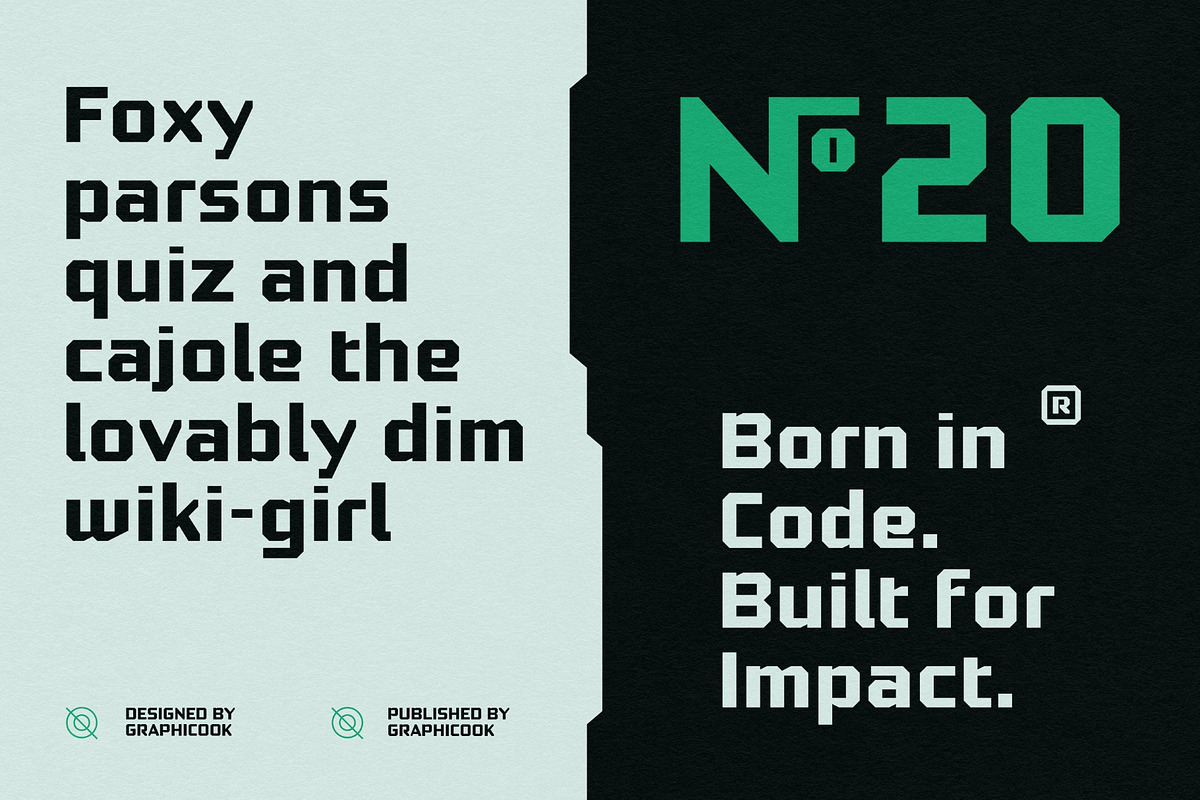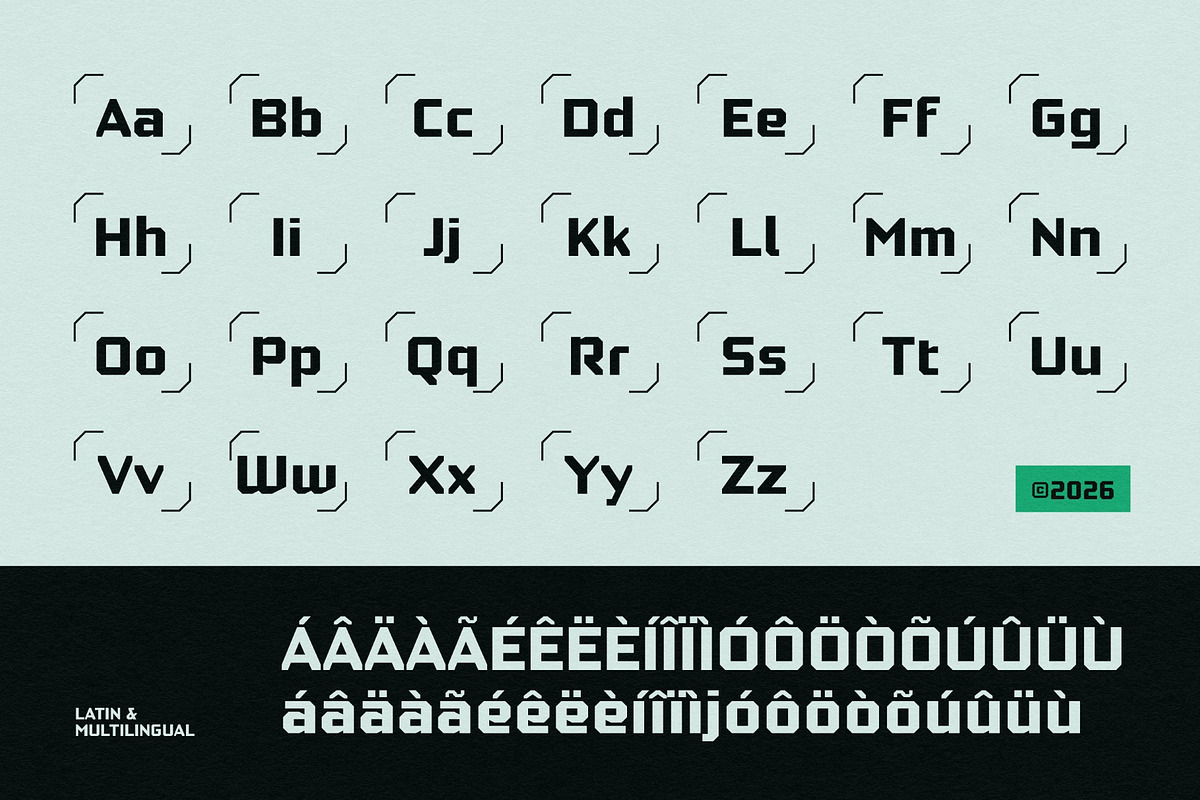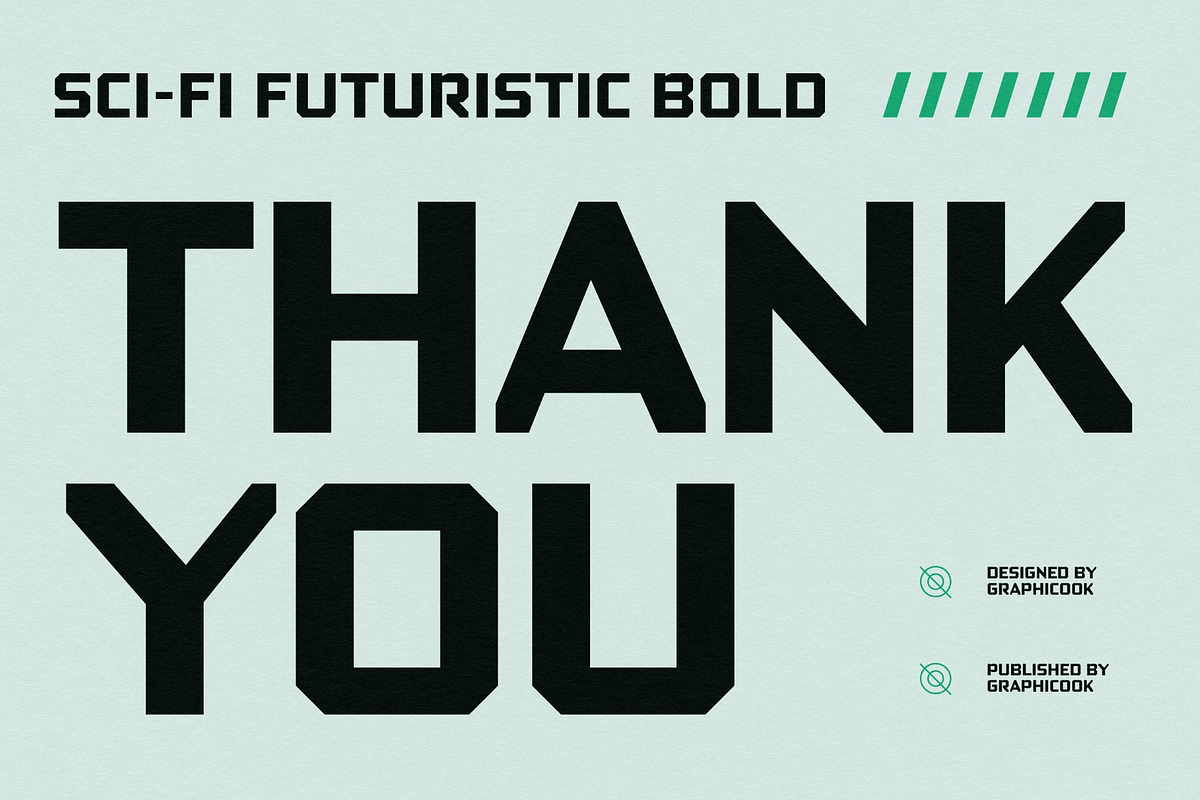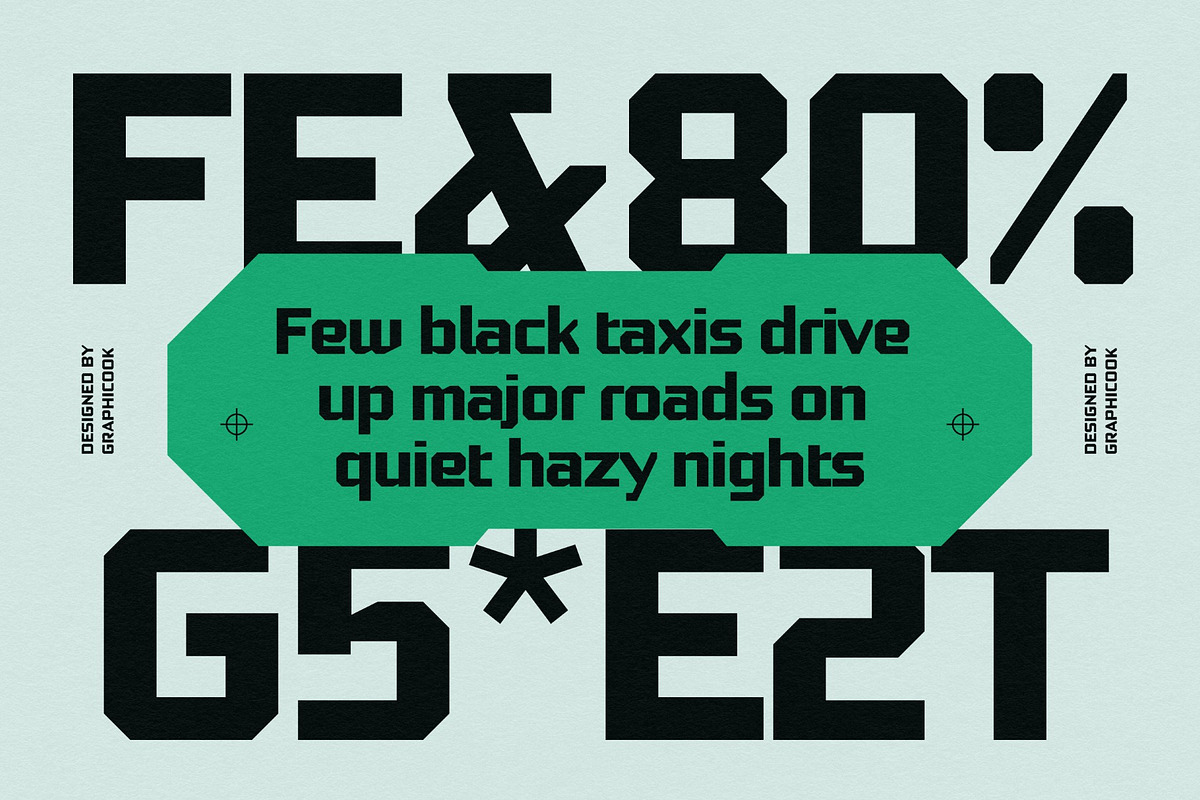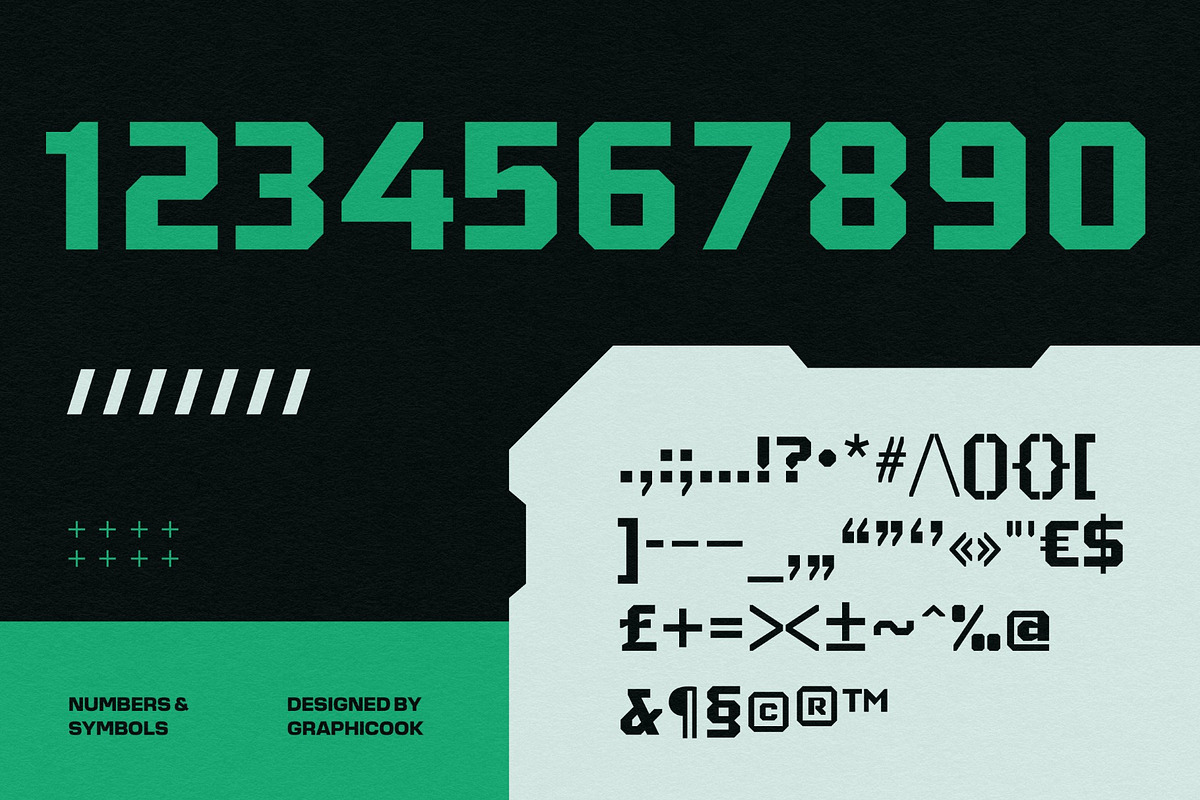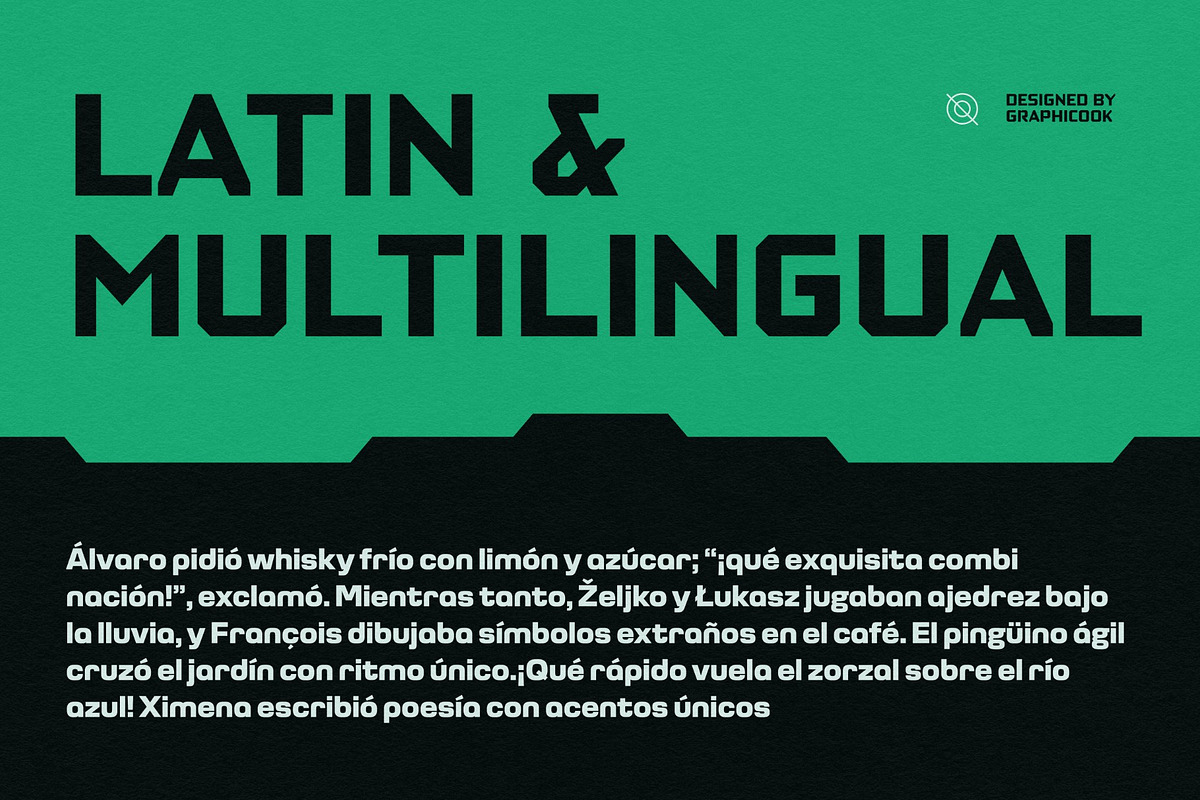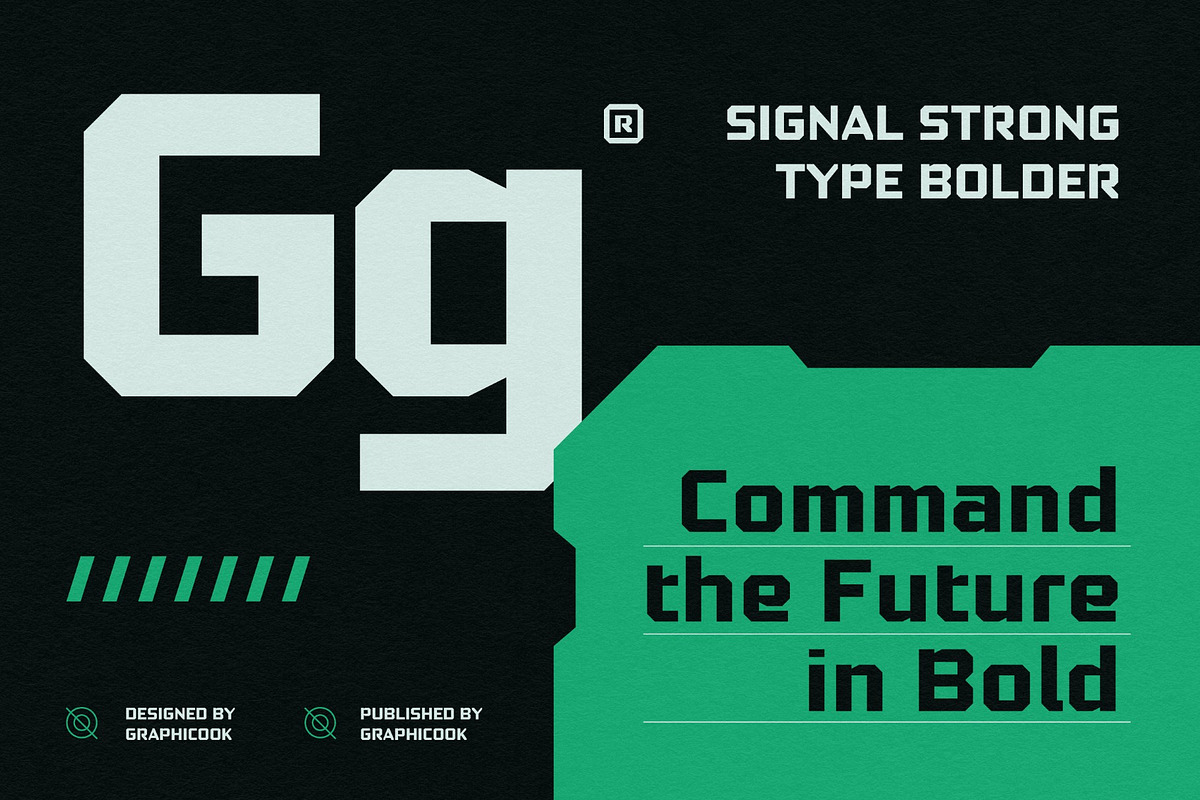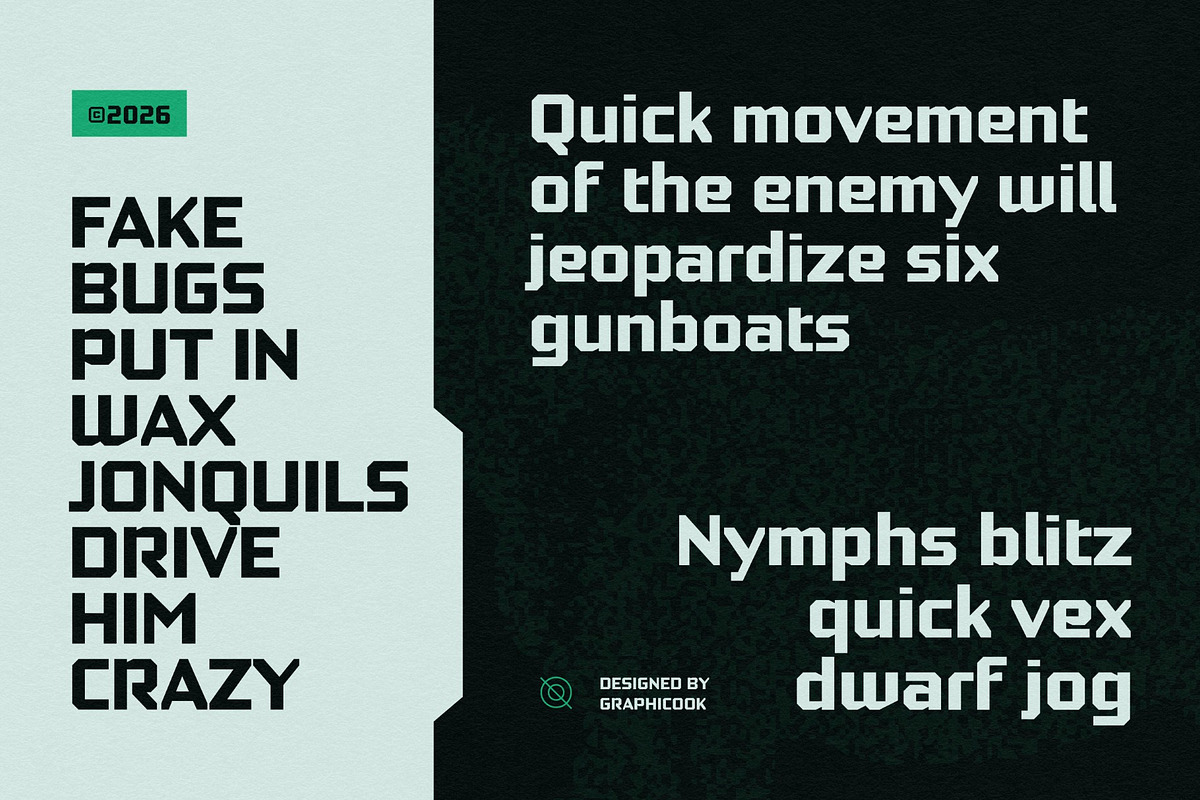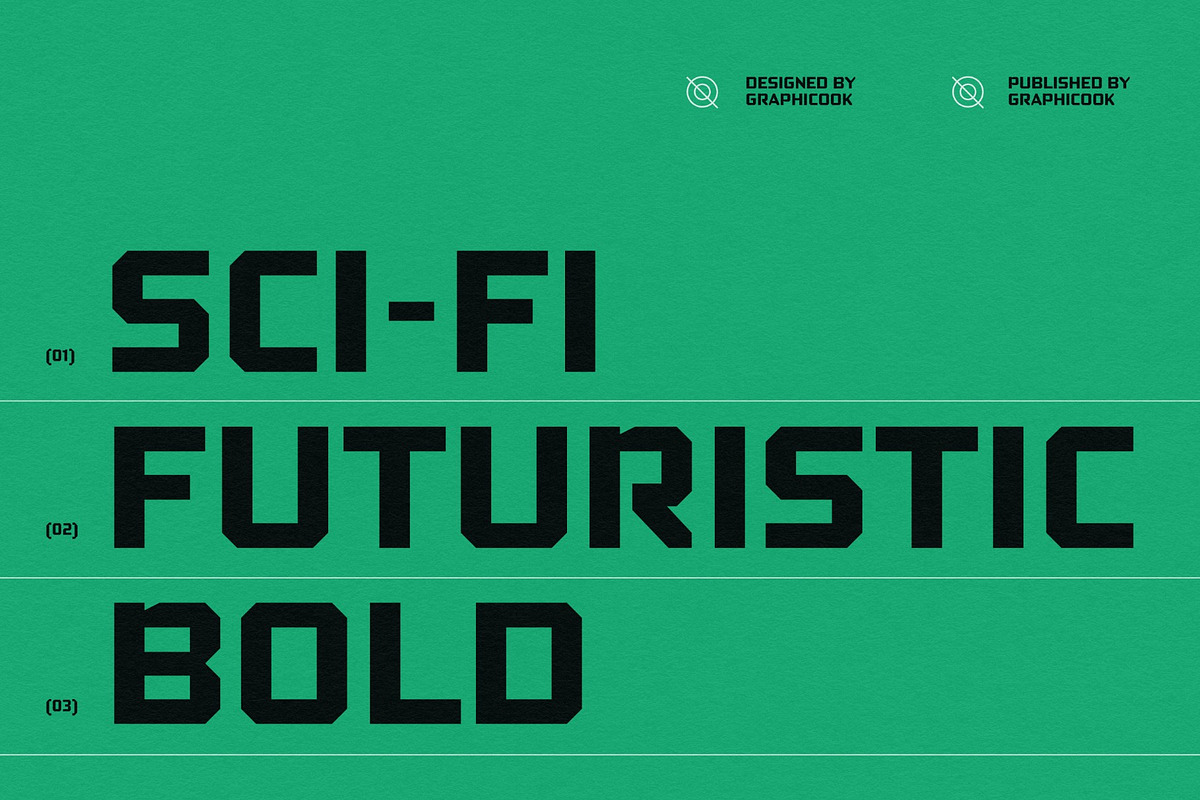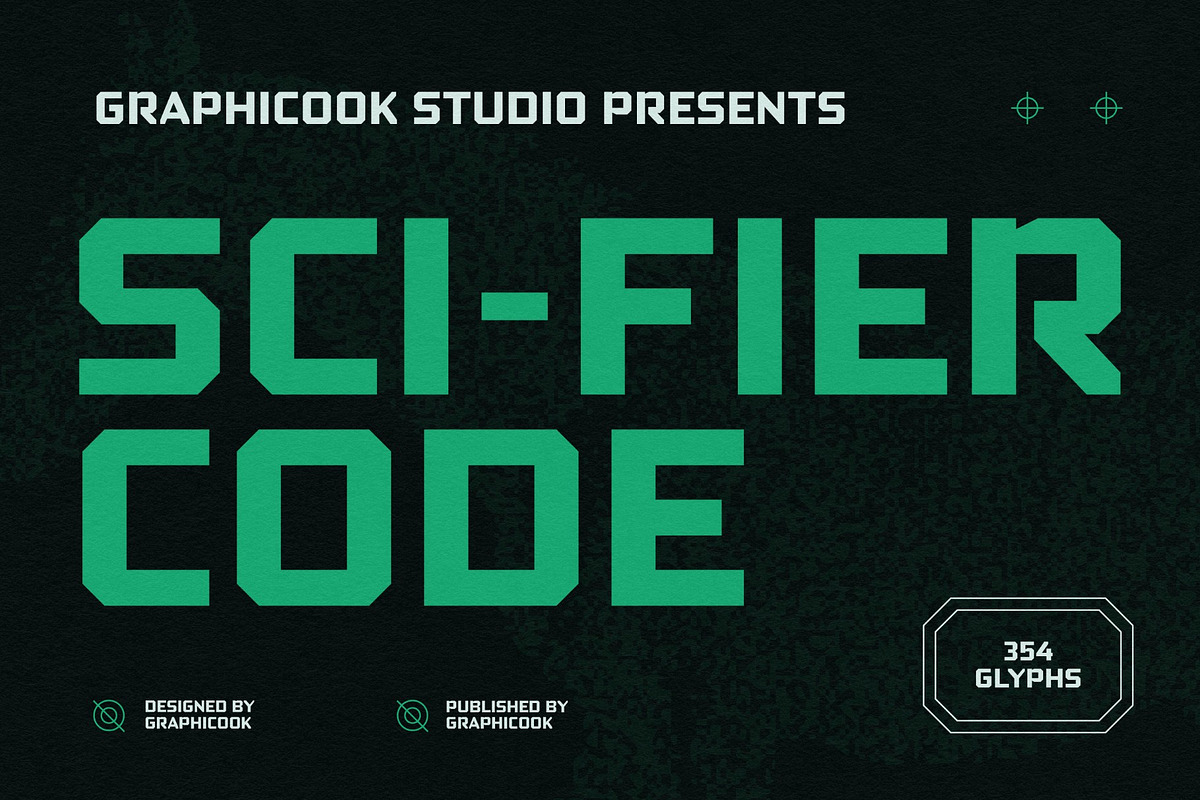
Sci-Fier Code
Sci-Fier Code font is a futuristic geometric sans-serif display font featuring bold square letterforms with distinctive cut corners. Blending technology, sci-fi, cyber, industrial, and sporty influences, it offers outstanding readability at large sizes. Ideal for logos, tech branding, esports, games, posters, UI/UX, packaging, motion graphics, and futuristic design projects.
It is perfect for headlines, logotypes, magazines, packaging, quotes, movies, games, cover albums, book covers, and flyers, it's a perfect solution for creating eye-catching designs that stand out in any context.